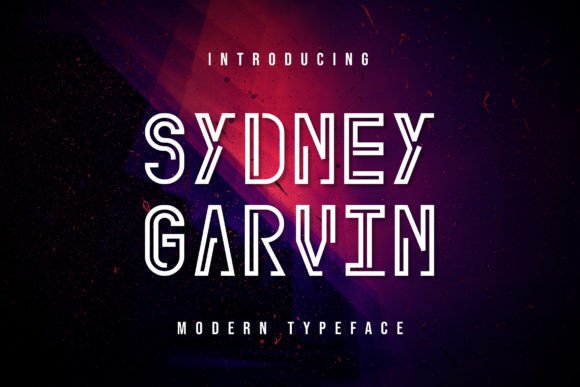
Enter the realm of visual enchantment with Sydney Garvin Font, a display font that dances off the screen with its captivating curves and whimsical charm. Designed by the talented hands at zerologicstudio, this font is not just a collection of letters; it's an artistic masterpiece, waiting to transform your creative visions into tangible realities.
Immerse yourself in a world of visual delight as Sydney Garvin's playful personality leaps off the page, captivating your audience with its quirky charm. Each character pirouettes across the screen, exuding a sense of joy and vibrancy that is sure to leave an unforgettable impression.
Whether you're a seasoned designer seeking a fresh perspective or a budding artist exploring the world of typography, Sydney Garvin Font is your perfect companion. Its versatility knows no bounds, effortlessly adapting to a symphony of creative endeavors. From eye-catching logos that demand attention to stunning posters that ignite imaginations, Sydney Garvin Font elevates your designs to extraordinary heights.
Experience the transformative power of Sydney Garvin Font as it weaves its magic across your web designs, imbuing them with a touch of elegance and sophistication. Watch as your websites metamorphose into captivating digital landscapes, enchanting visitors with their visual allure.
Sydney Garvin Font is more than just a font; it's an invitation to embark on a creative odyssey, where boundaries dissolve, and imaginations run wild. Unleash your inner artist and let Sydney Garvin Font be your guide, leading you to typographic triumphs that will leave your audience spellbound.